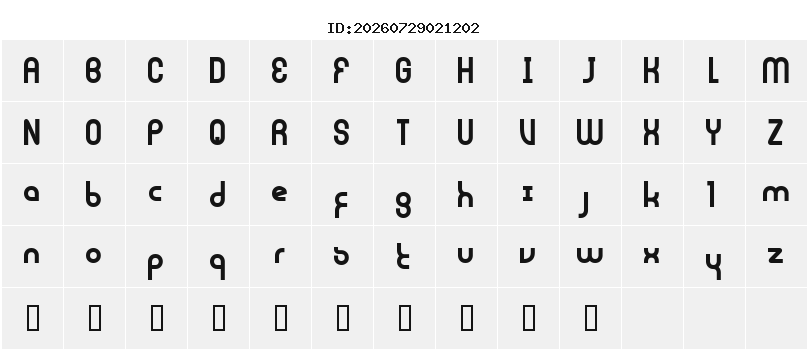
• Font Name: Joulu Fontti
Joulu Fontti.ttf is a modern, elegant sans-serif font designed for ultimate readability and visual harmony. Perfect for branding, headlines, web design, and print materials.